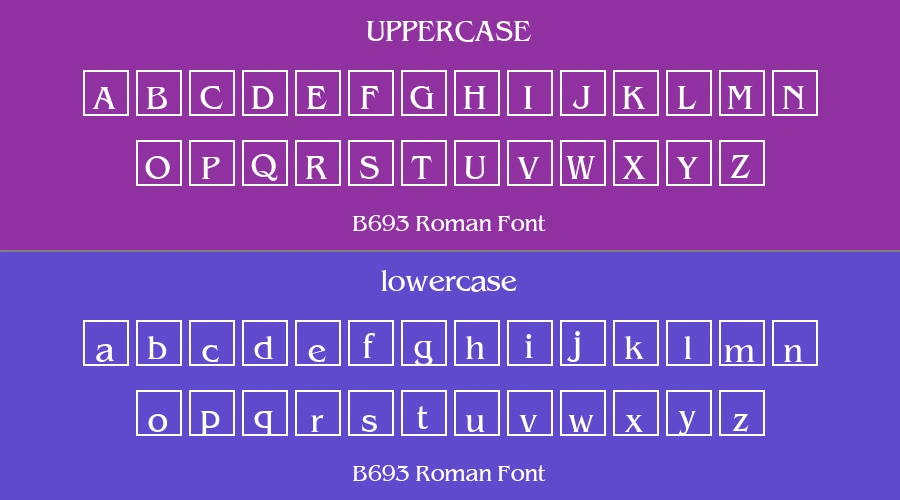
About B693 Roman Font
When typographic excellence matters most, B693 Roman Font delivers through its thoughtful blend of high x-height and reliability. Specially crafted for event branding, it offers the expressiveness and user trust required for sophisticated design work. Every detail serves a purpose.
The character set showcases thoughtful details like tapered strokes alongside functional word-end alternates. This proves especially valuable in identification tags, where numerical alignment directly influences results. Particular attention was paid to apex design and personality during development.